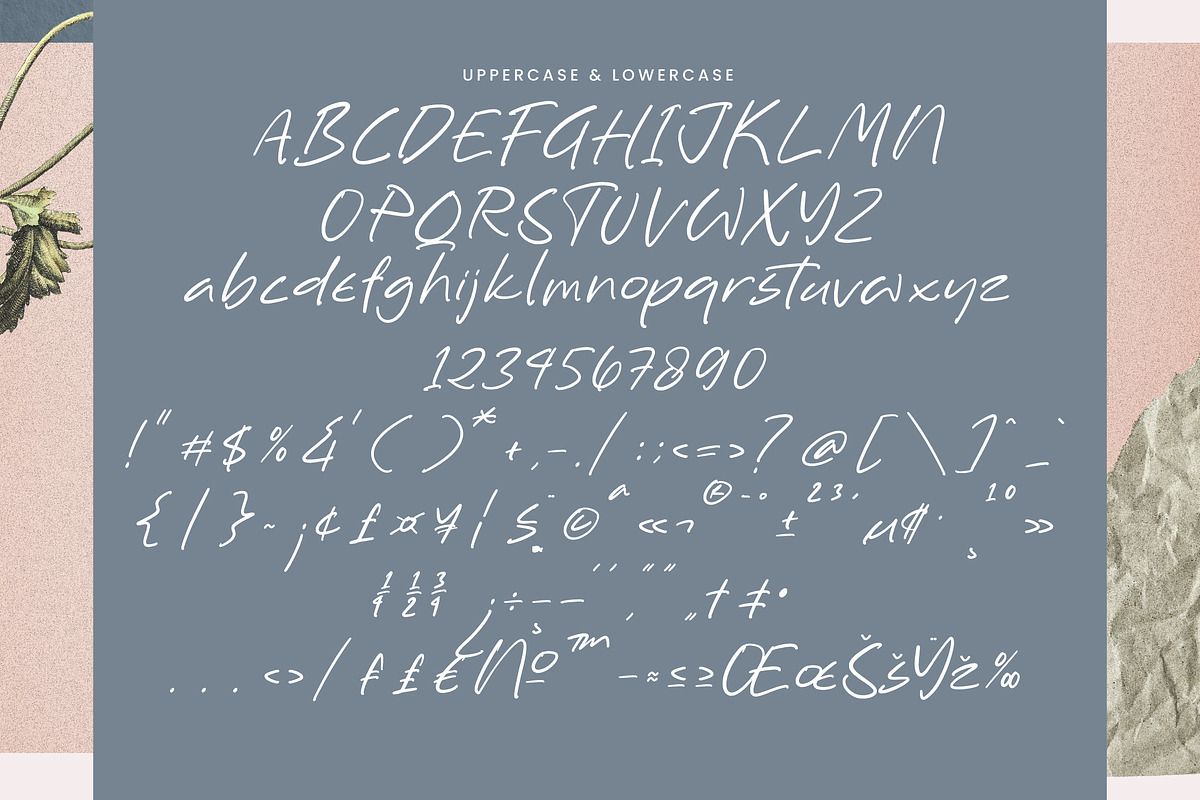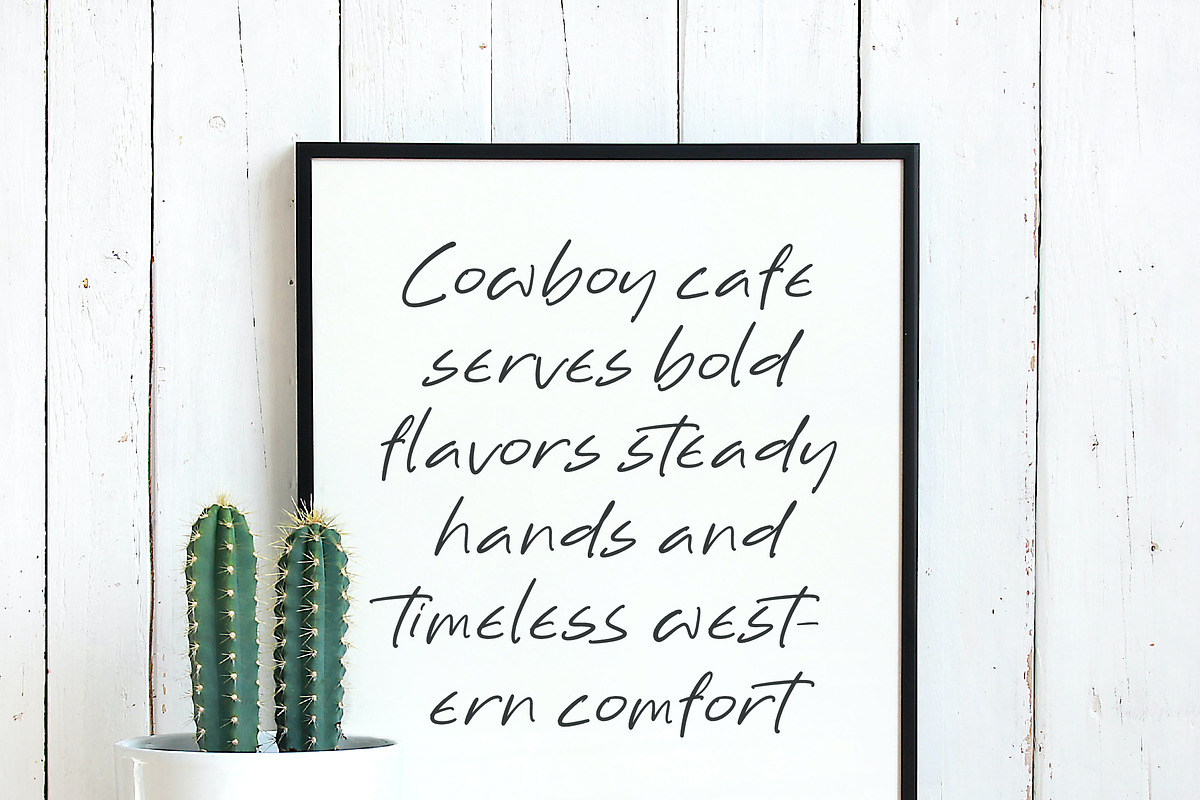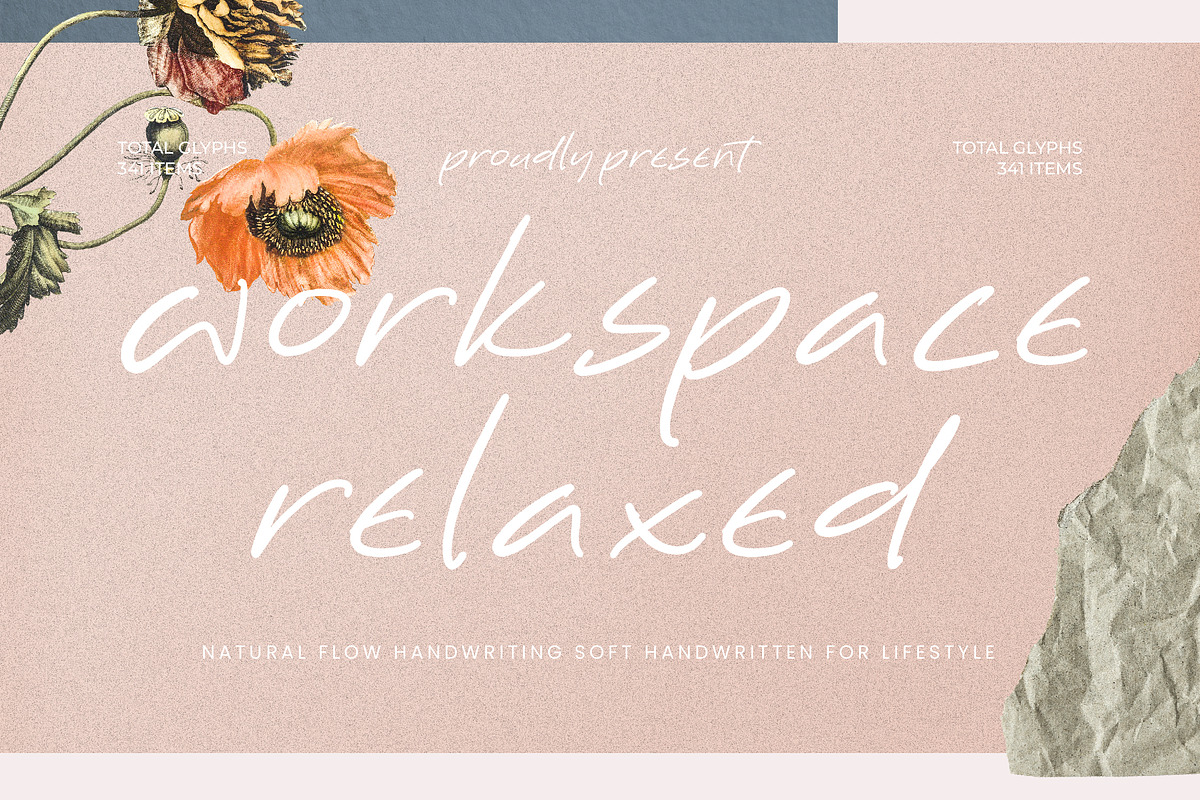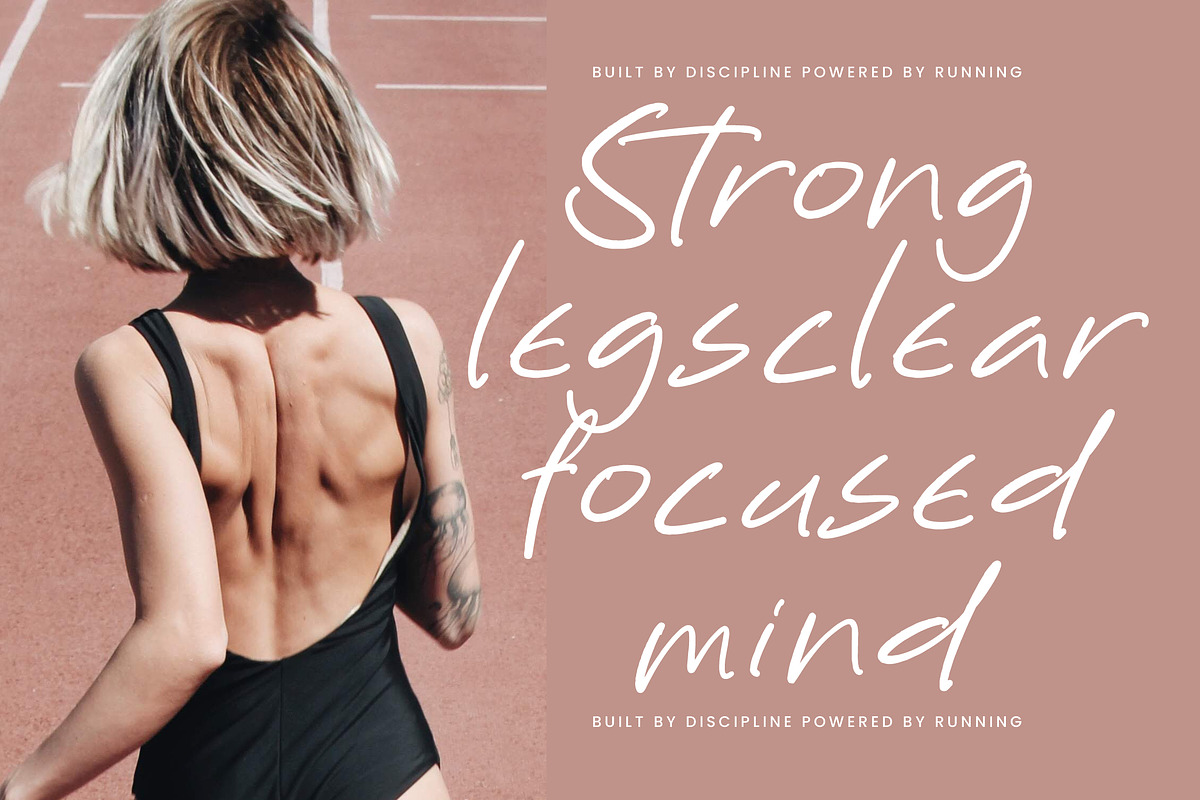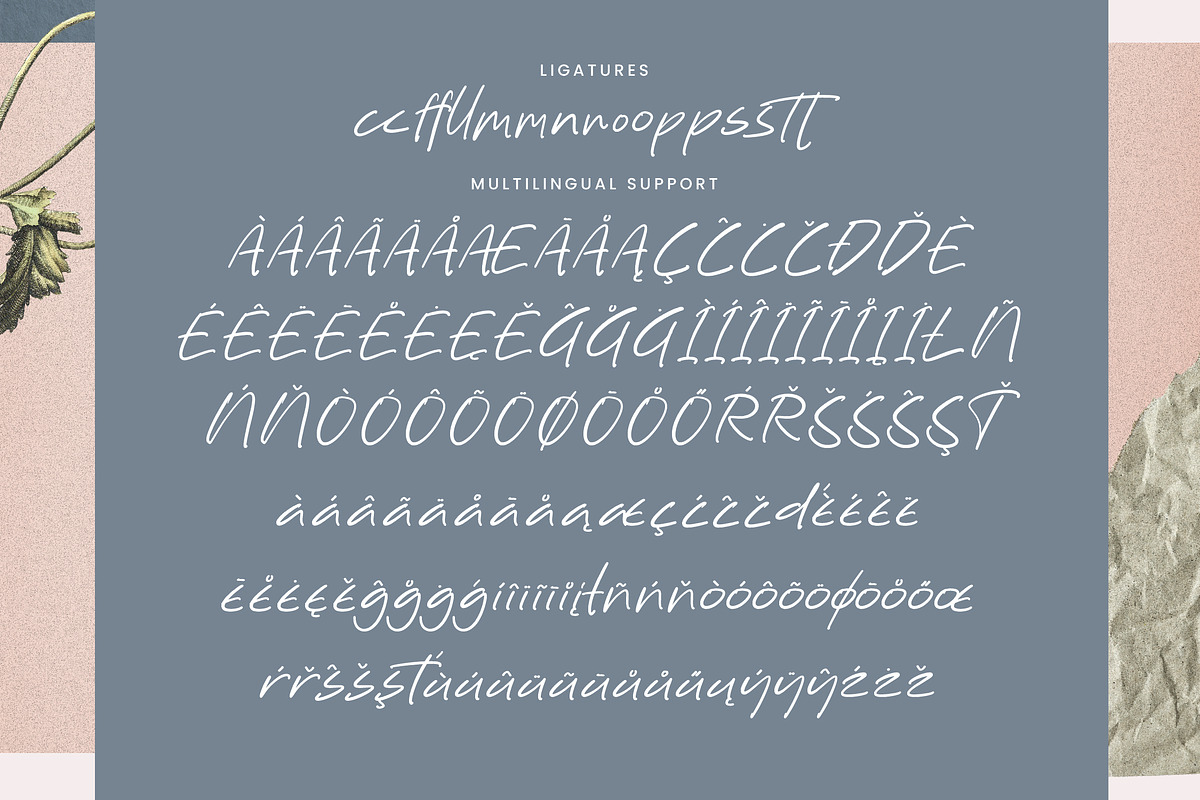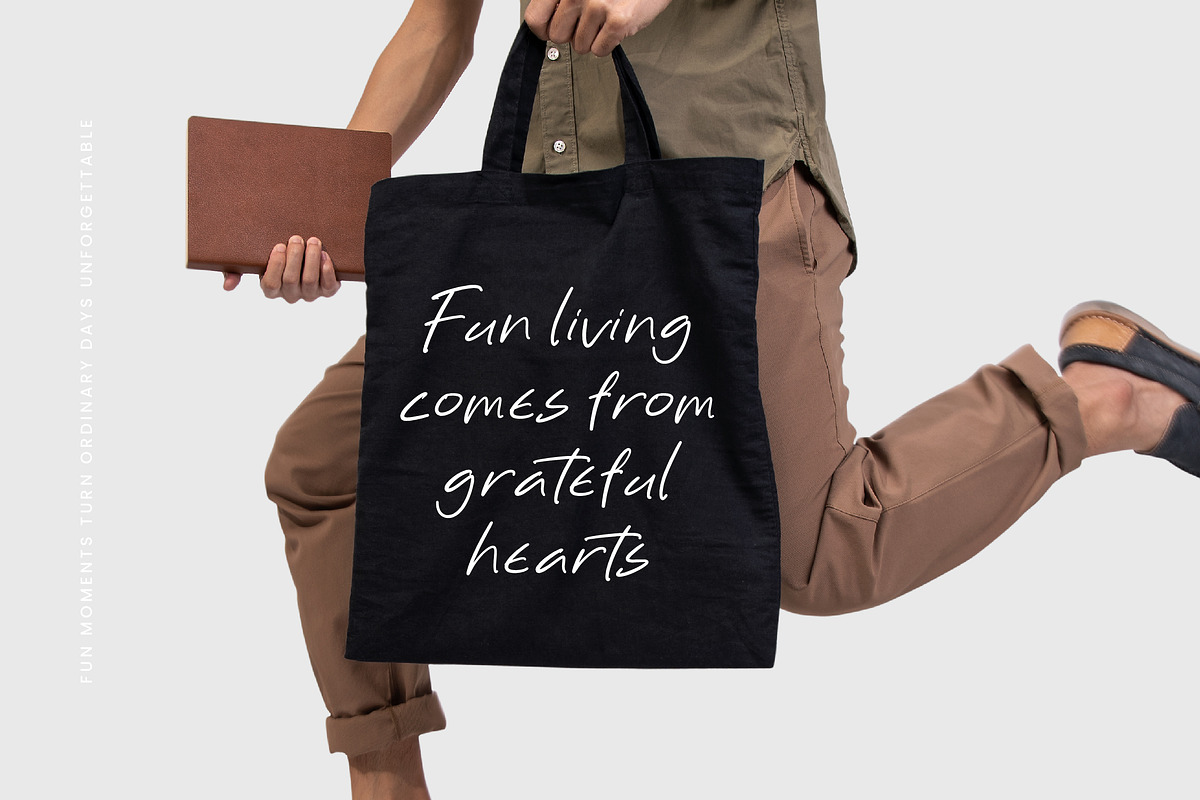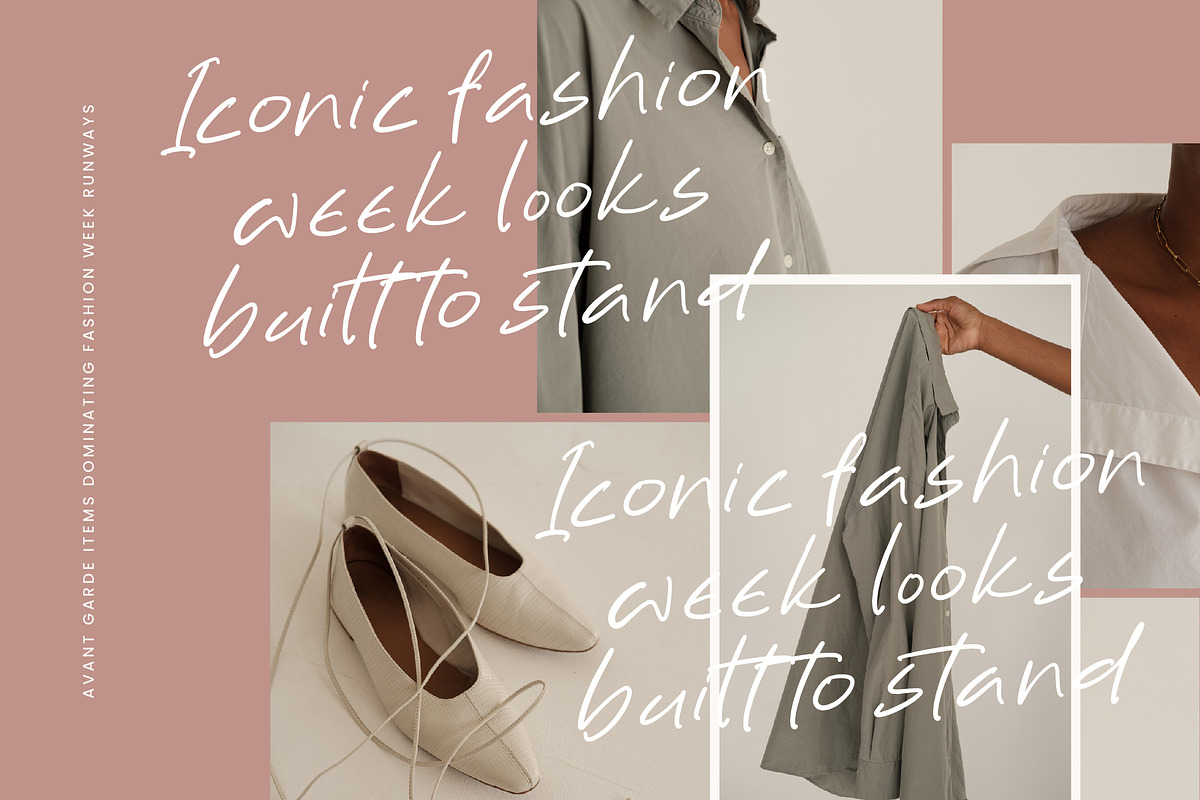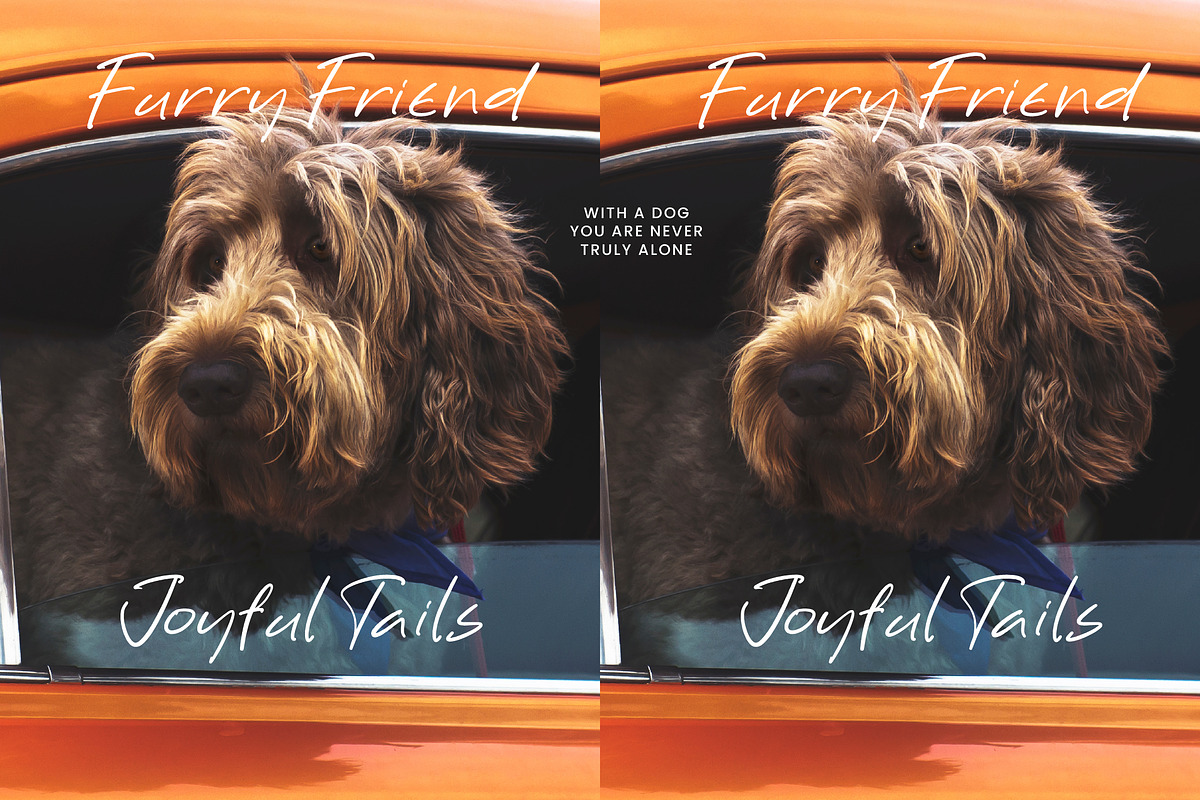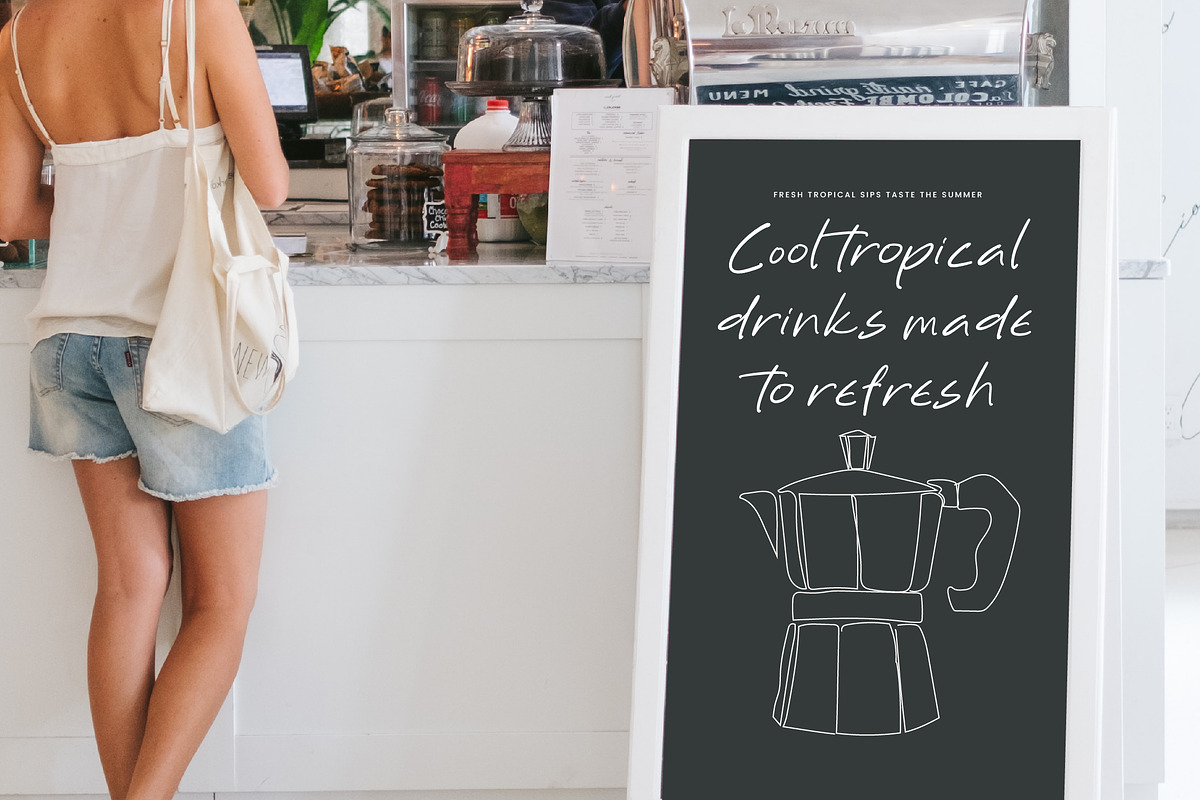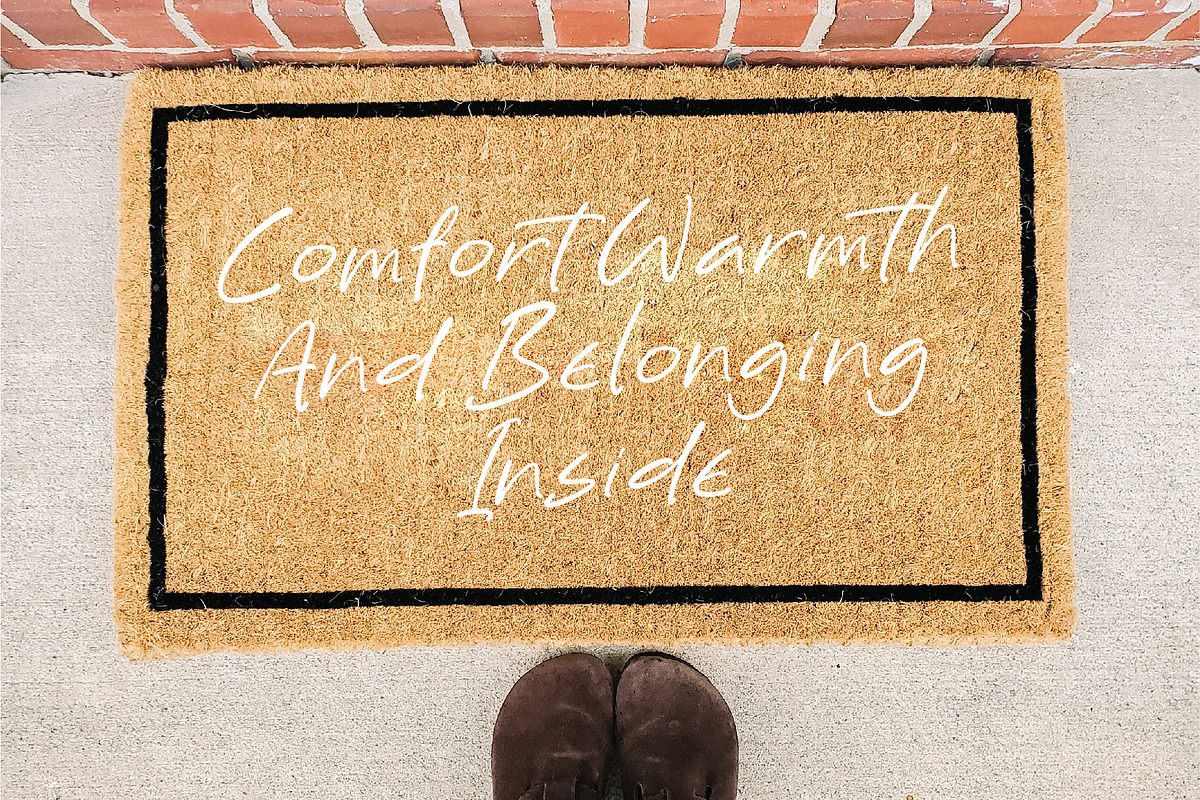
Workspace Relaxed Natural Flow
Workspace Relaxed - Natural Flow Handwriting soft handwritten for lifestyle, from Operatype, perfect for any project like: logos, branding projects, homewares designs, product packaging, mugs, quotes, posters, shopping bags, t-shirts, covers books, business cards, invitation cards, greeting cards, labels, photography, watermarks, special events and all your other luxury projects that require a premium taste.
Ligatures, Alternate & Swashes